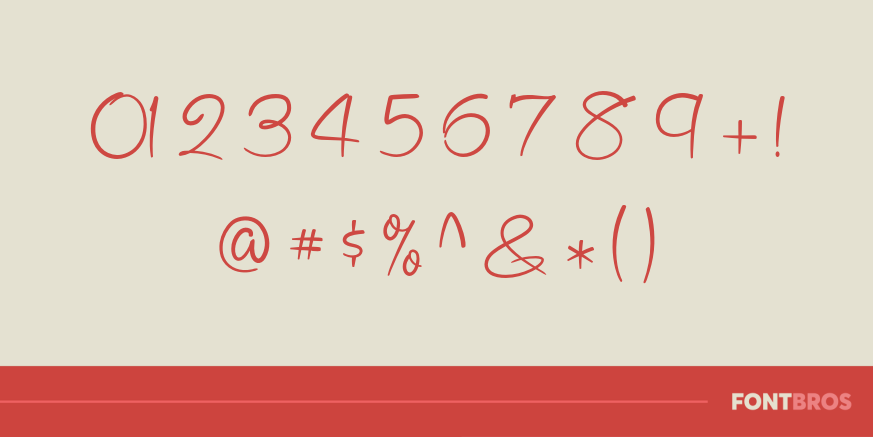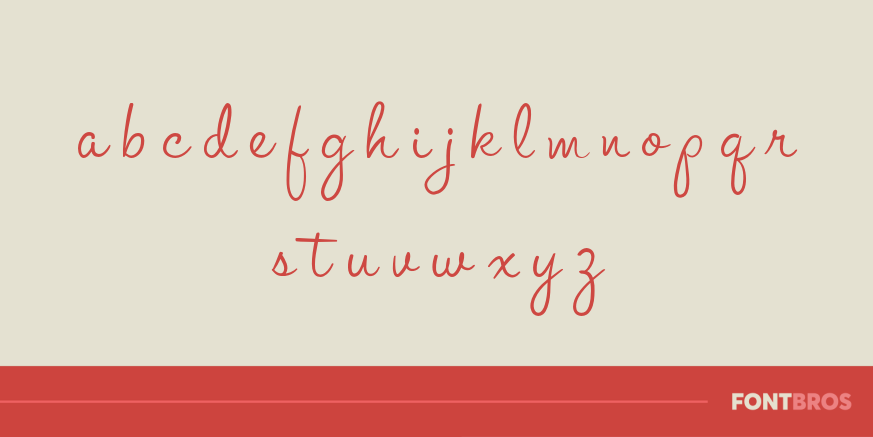
Refreshment Stand
Font Family by Font Diner
It's Intermission Time Folks! Time to whet your whistle with an ice cold refreshing soda, hot buttery popcorn or a box of our freshest candy! Better still, enjoy our famous handwritten casual pen script at popular prices!